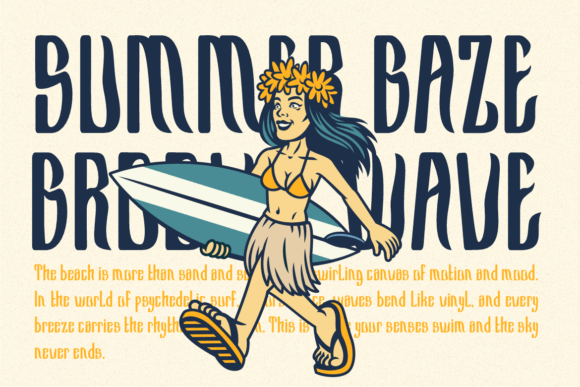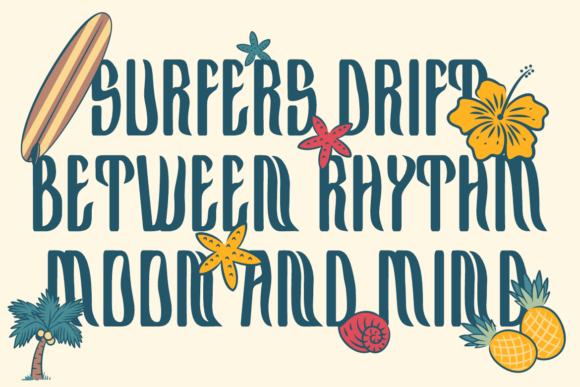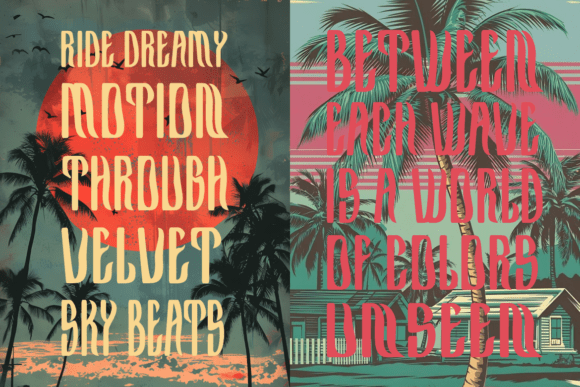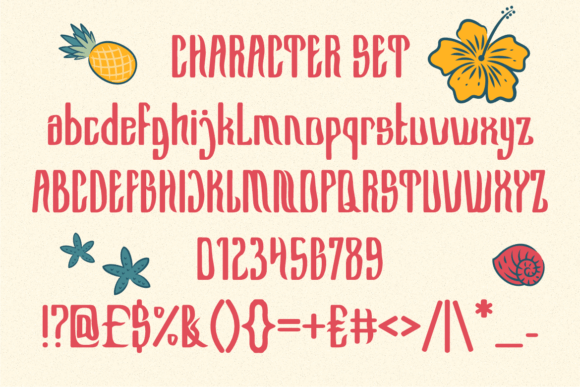
Introduction to Funkies Surfer Font
Have you ever stumbled upon an old surf shop, its walls plastered with vibrant posters that instantly transport you to a bygone era of sun-kissed beaches and carefree summers? For designers, this sensation is the ultimate creative spark, and it’s exactly what the Funkies Surfer Font embodies. This bold, stylized font is a masterful blend of retro surf culture and modern groovy aesthetics, perfect for adding a touch of nostalgia and whimsy to your next creative project.
As a design resource, Funkies Surfer Font offers unparalleled versatility, with its complete set of uppercase, lowercase, numbers, and symbols making it an ideal choice for logos, posters, merchandise, packaging, or book covers. With its high-contrast design and elongated letterforms, this font is sure to grab attention and evoke the feeling of freedom and adventure that defines the surf culture. And the best part? It’s available for free download, making it a valuable addition to any designer’s toolkit.
Funkies Surfer Font
- High-quality design for creative projects and design resources, offering a unique and stylish look.
- The Funkies Surfer Font is available in 4 different font sizes (200, 300, 400, and 600), providing flexibility for designers to choose the perfect size for their project.
- The font has a resolution of 300 DPI, making it suitable for both digital and print designs.
- Designed to evoke a fun and laid-back vibe, the Funkies Surfer Font is perfect for creative projects that require a carefree and playful atmosphere.
Honest Review: Funkies Surfer Font
As a designer, I’m always on the lookout for high-quality design resources to elevate my creative projects. Funkies Surfer Font has caught my attention, and I’m excited to share my thoughts on this free download.
- Unique and quirky design aesthetic that adds a touch of playfulness to any project.
- Includes a transparent background, making it easy to customize and use with various design elements.
- Perfect for surf, beach, or summer-themed projects, but also suitable for more abstract and creative designs.
- High-quality font files ensure crisp and clear typography, even at larger sizes.
- Limited character set, which might not be ideal for longer text-based projects.
- No bold or italic font styles available, which could be a drawback for designers who prefer to emphasize certain text.
Overall, I’m impressed with Funkies Surfer Font’s unique design and high-quality file export. While it may have some limitations, it’s a great addition to any designer’s toolkit, especially for creative projects that require a fun and quirky touch.
Designing with Funkies Surfer Font
The Funkies Surfer Font is a high-quality, free download design resource perfect for creative projects. Its unique style and transparent background make it ideal for adding a touch of fun and personality to your designs.
Tips for Getting the Most Out of Funkies Surfer Font
To get the most out of the Funkies Surfer Font, experiment with different font sizes, colors, and combinations. You can also use the font in conjunction with other design elements, such as images and graphics, to create visually appealing designs.
Common Use Cases for Funkies Surfer Font
The Funkies Surfer Font is ideal for a variety of creative projects, including social media graphics, posters, flyers, and business cards. Its unique style and transparent background make it perfect for adding a touch of fun and personality to your designs.
Q: Does Funkies Surfer Font have a transparent background?
Yes, Funkies Surfer Font comes with a transparent background, making it easy to use in design projects where you want to create a seamless look. Simply place the font over your desired background image or color, and you’re good to go!